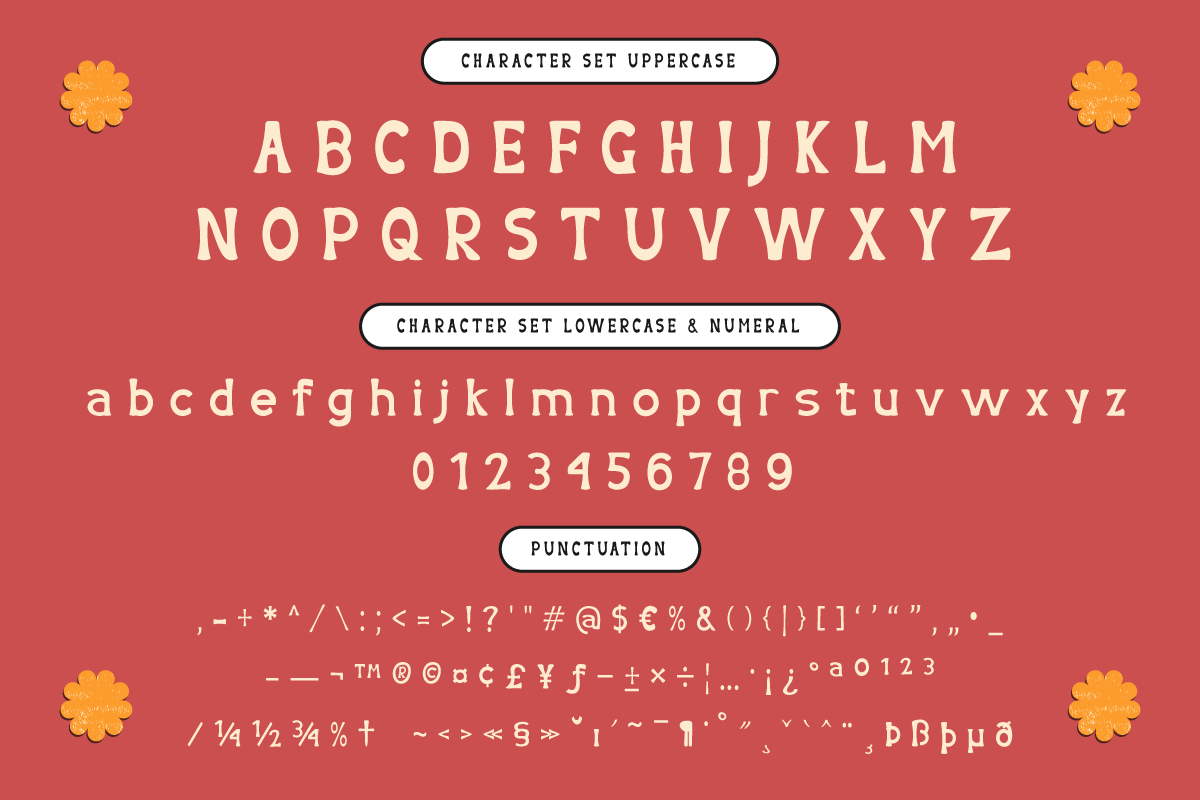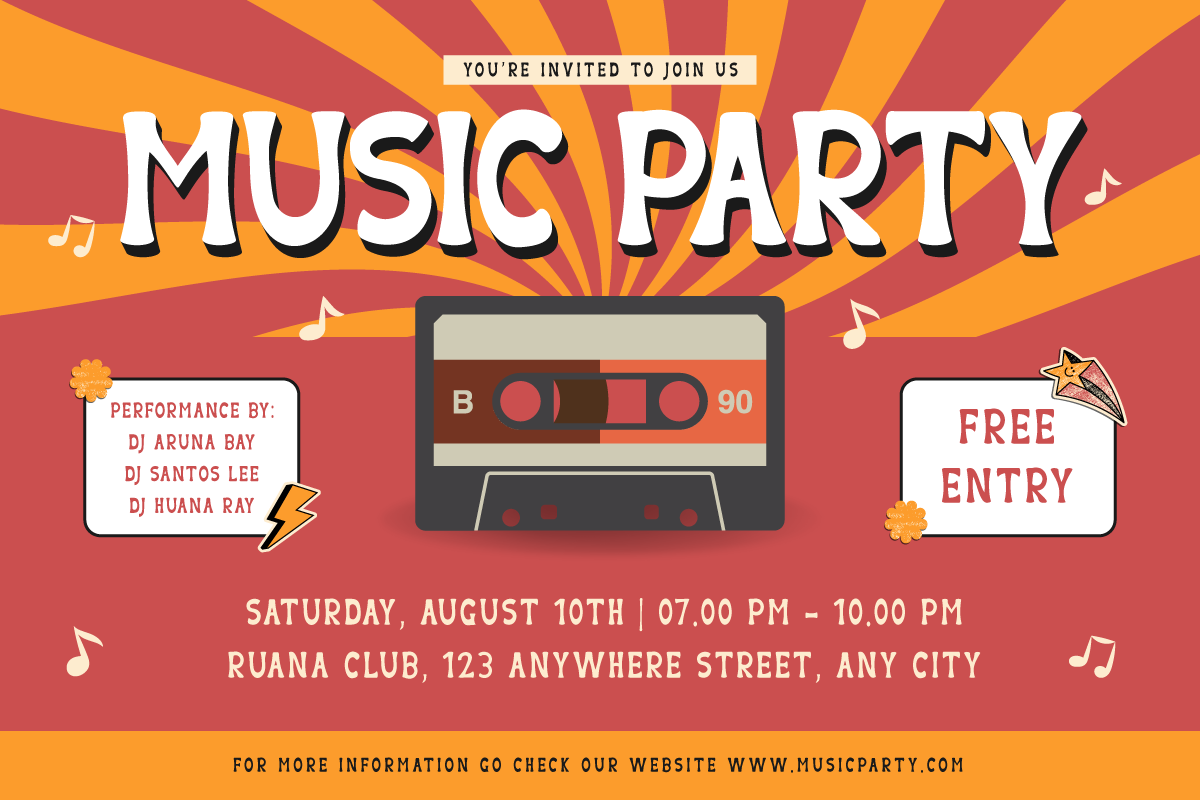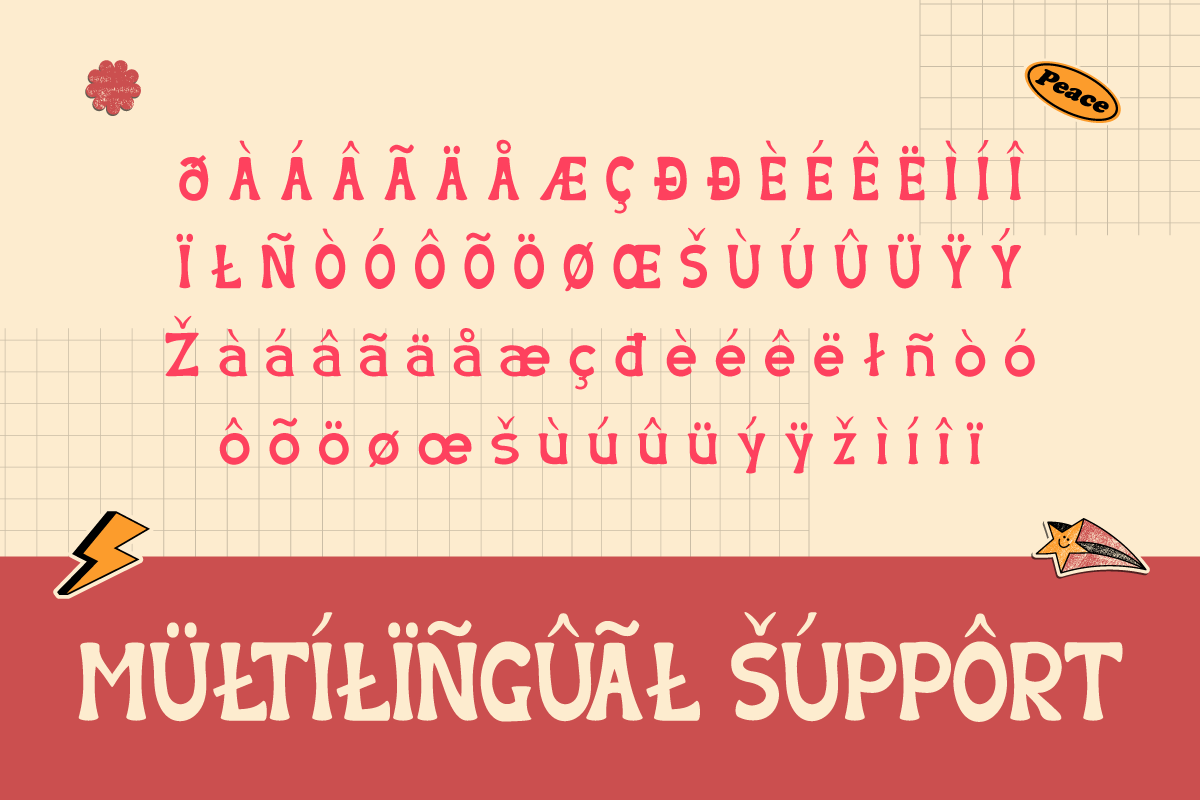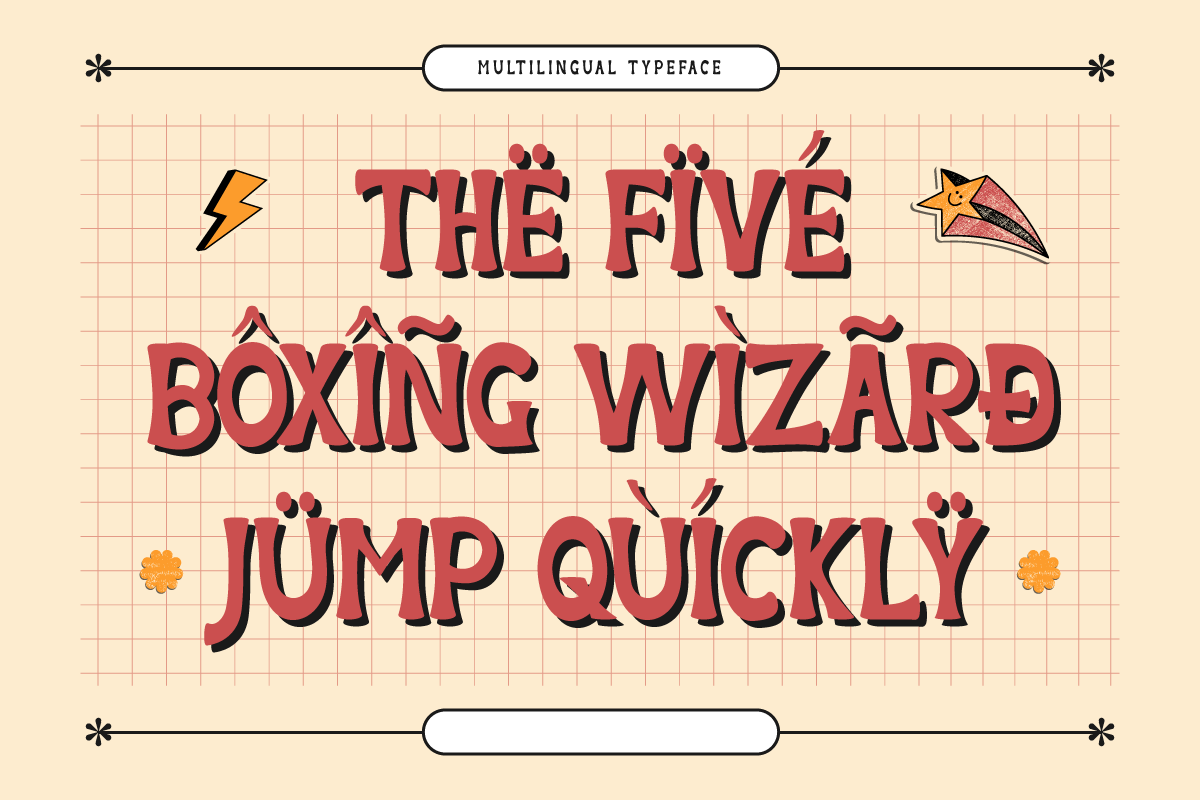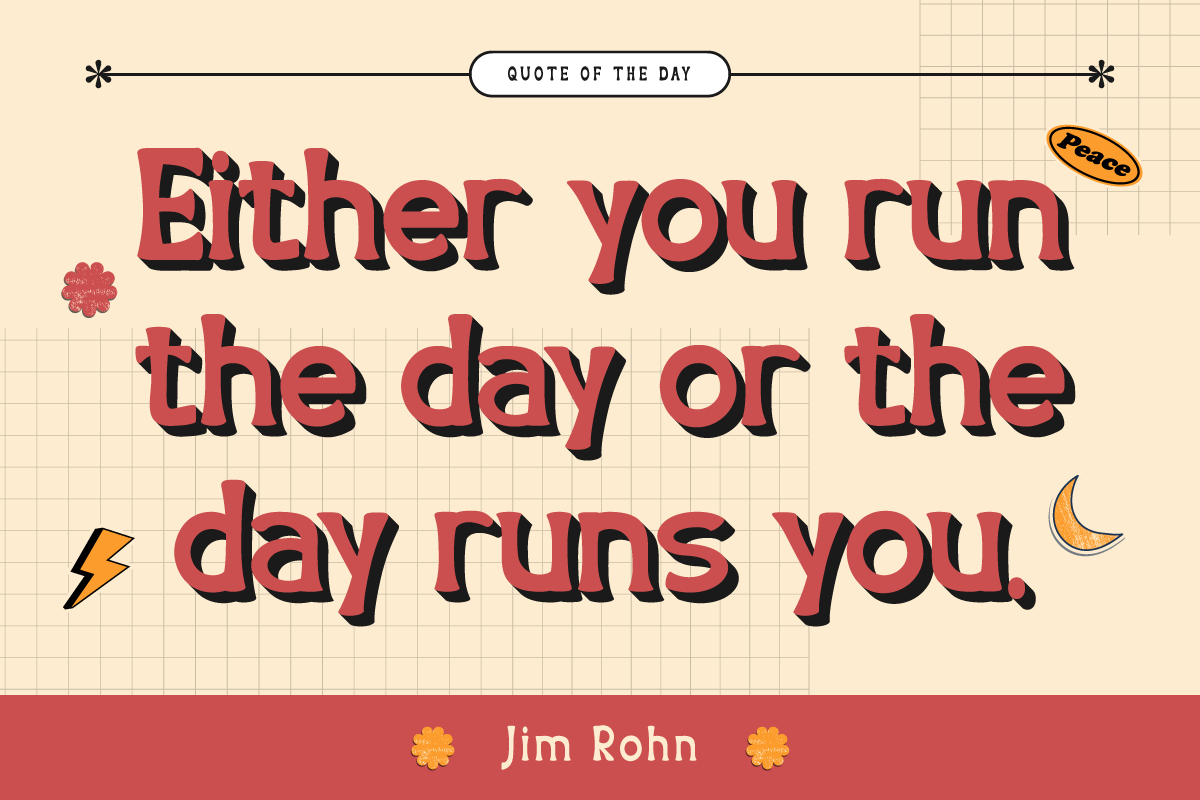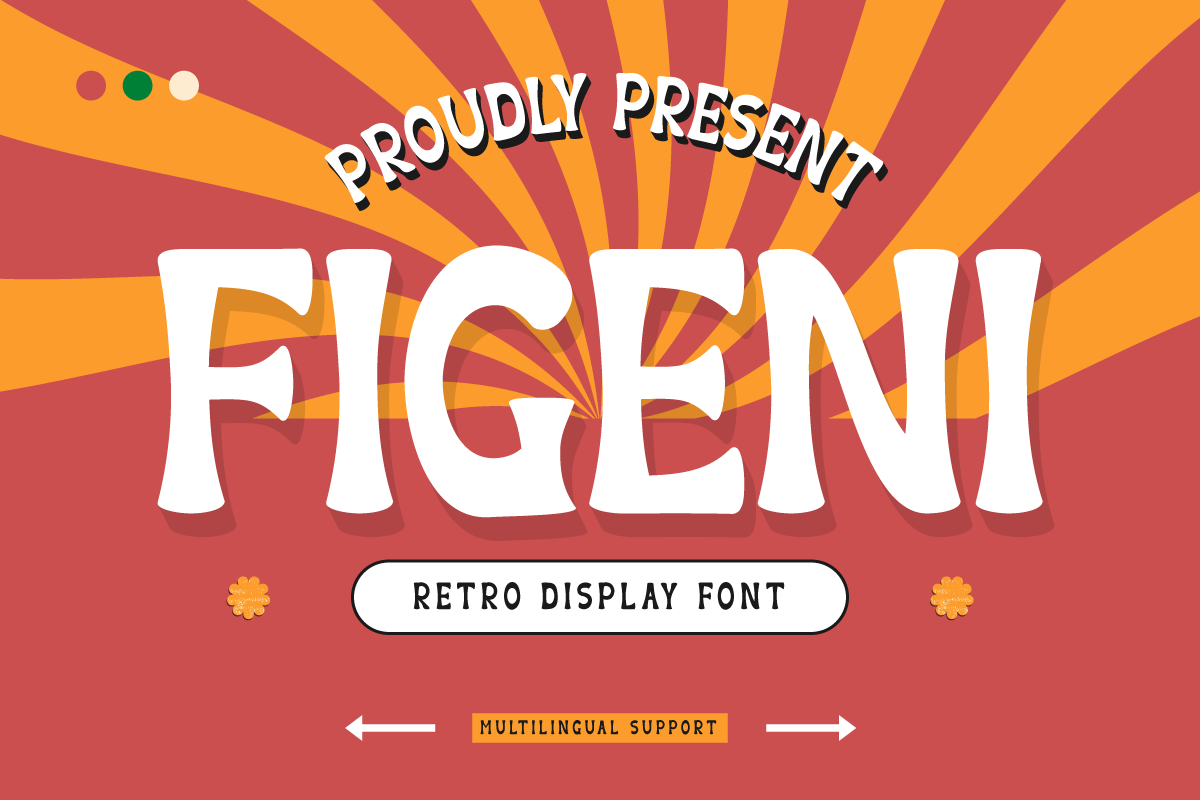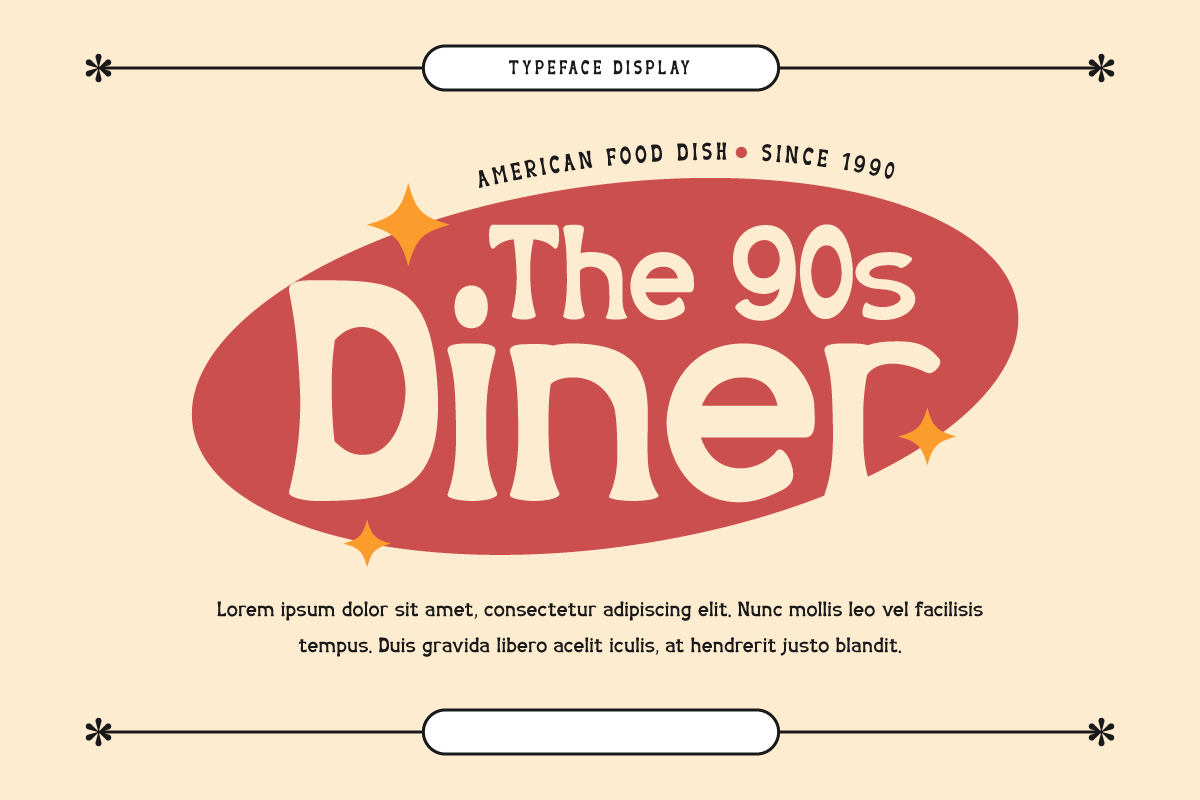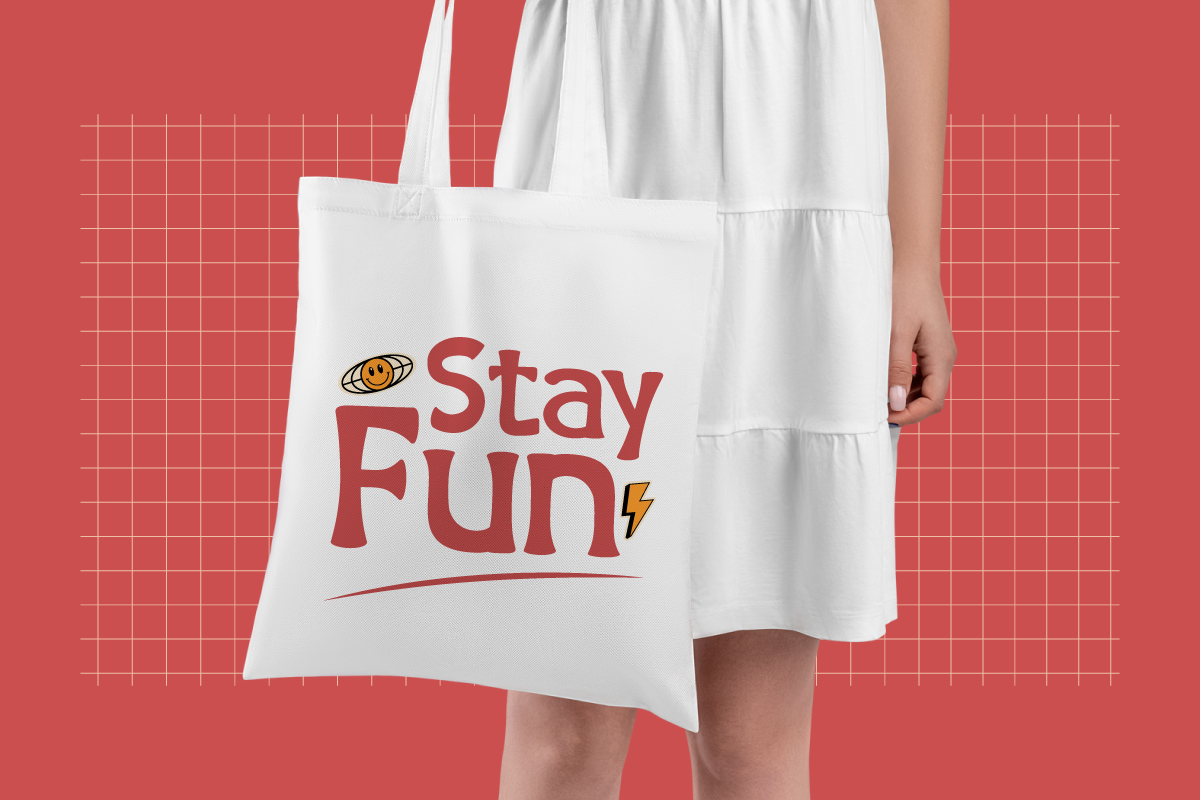
Figeni - Retro Display Font
Figeni is a retro display font that combines vintage style with modern design. Its unique, retro-inspired characters make it perfect for designs with a nostalgic feel. Whether you’re creating a poster for a retro-themed event or designing a logo for a brand with a vintage vibe, Figeni is the perfect choice.
- Fonts include Multilingual: Support for 85 languages. Afrikaans, Albanian, Asu, Basque, Bemba, Bena, Breton, Catalan, Chiga, Cornish, Croatian, Czech, Danish, Dutch, Embu, English, Esperanto, Estonian, Filipino, Finnish, French, Friulian, Galician, Gusii, Hungarian, Indonesian, Irish, Italian, Kabuverdianu, Kalenjin, Kamba, Kikuyu, Kinyarwanda, Latvian, Lithuanian, Lower, Sorbian, Luo, Luxembourgish, Luyia, Machame, Makhuwa-Meetto, Makonde, Malagasy, Maltese, Manx, Meru, Morisyen, North, Ndebele, Norwegian Bokmål, Norwegian Nynorsk, Nyankole, Oromo, Polish, Portuguese, Quechua, Romanian, Romansh, Rombo, Rundi, Rwa, Samburu, Sango, Sangu, Scottish, Gaelic, Sena, Serbian, Shambala, Shona, Slovak, Slovenian, Soga, Somali, Spanish, Swahili, Swedish, Swiss German, Taita, Teso, Turkish, Upper Sorbian, Uzbek (Latin), Volapük, Vunjo, Walser, Zulu.